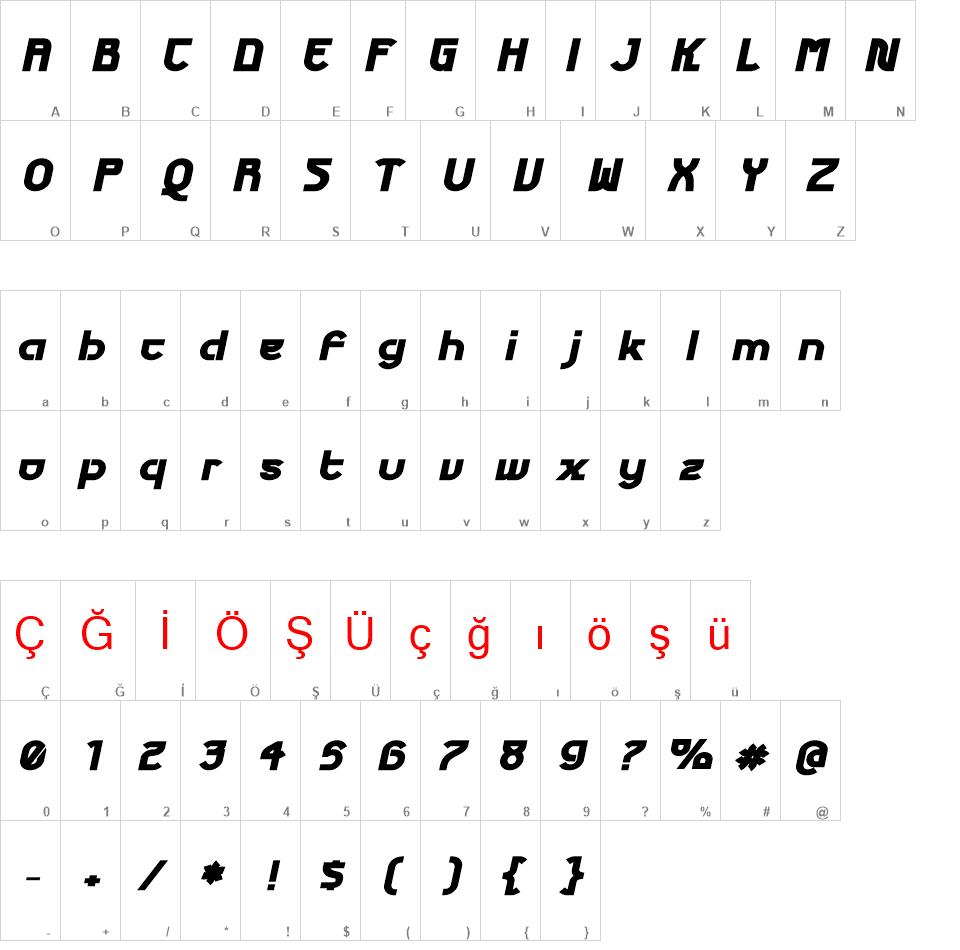
Futurex Phat font
Futurex Phat
Available in four variations: regular, oblique, outline, and oblique outline.
Sky Captain and the World of Tomorrow
Futurex Phat is part of the Futurex Project. Futurex is potentially the world's largest font family, with contributions from several type designers the world over. To find out more about the Futurex Project, see http://www?.google.co?m/search?h?l=en&l?r=&ie=?UTF-8&?q=%22Futur?ex+Project?%22